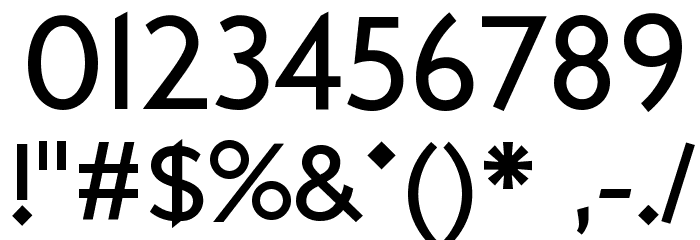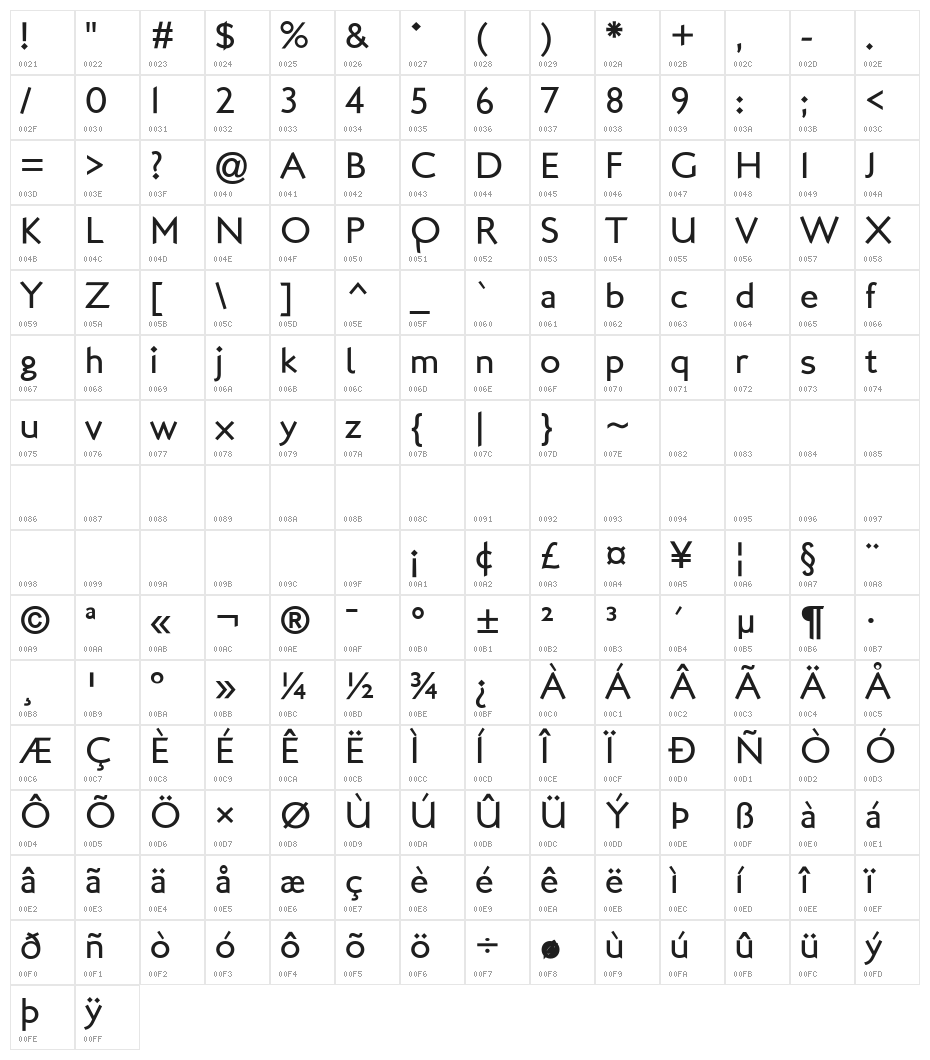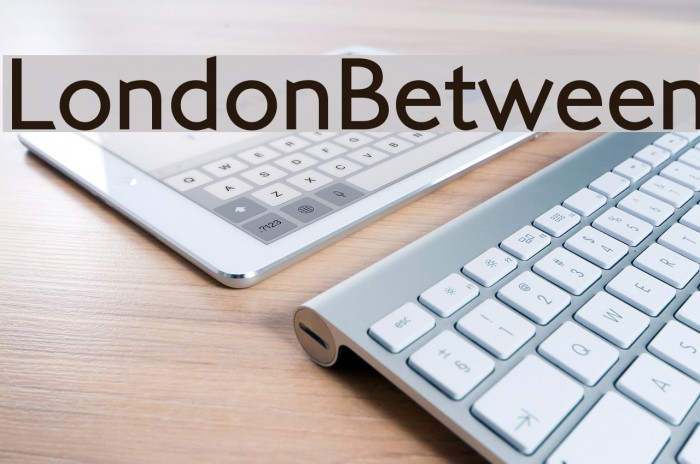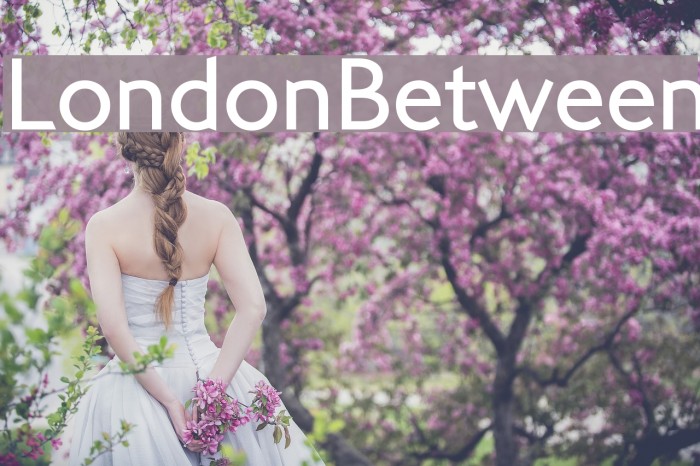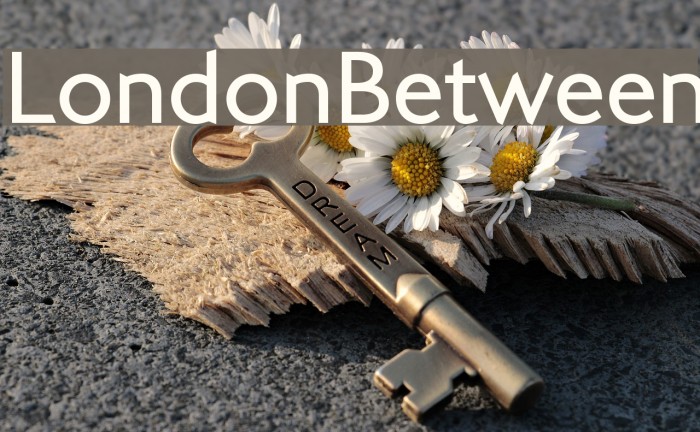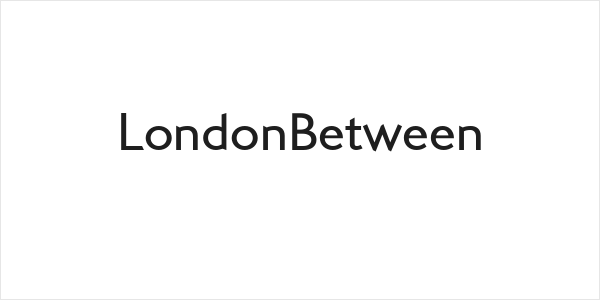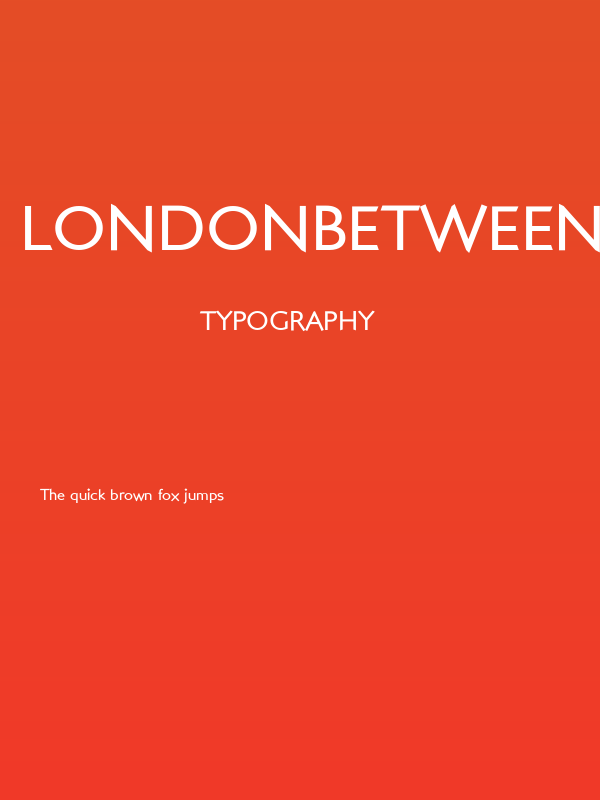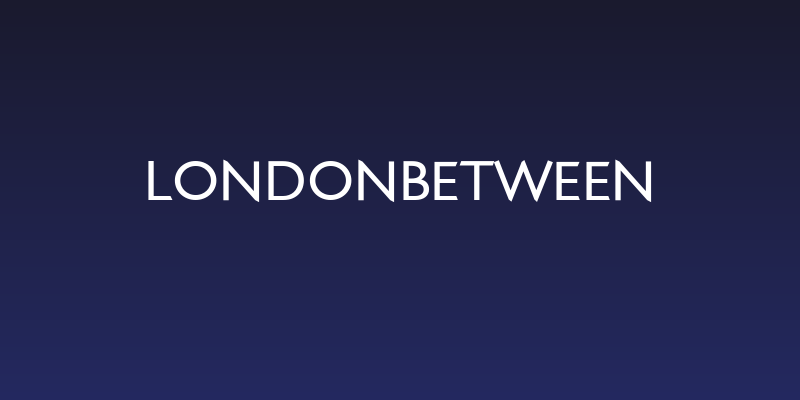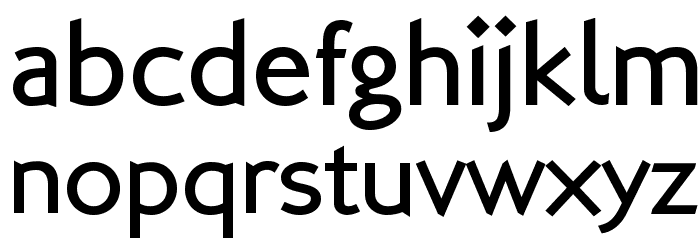
LondonBetween Font
LondonBetween Description
This font features a clean and modern sans-serif design, characterized by its geometric shapes and uniform stroke widths. The uppercase letters are bold and assertive, while the lowercase letters maintain a consistent and harmonious flow. The numerals are clear and easily distinguishable, making them suitable for various applications. Special characters are well-defined, adding to the font's versatility. The overall appearance is sleek and professional, making it ideal for contemporary design projects.
| Proposed Projects | Ideal for branding, advertising, web design, and editorial projects that require a modern and professional look. |